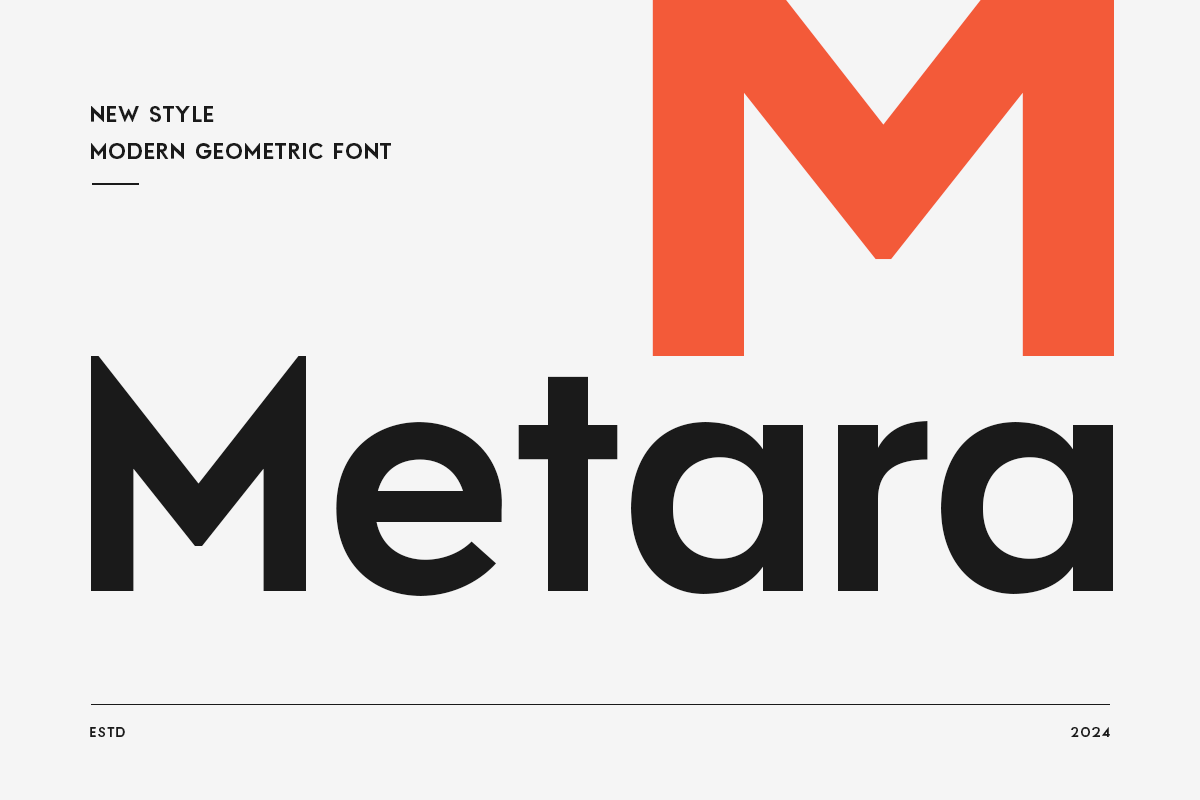
Metara
-Modern Geometric Font
Metara
Metara is a Modern Geometric Font with modern, minimalist, elegant, unique and bold-look. This font crafted specials for Modern-themed projects, ready to use on Magazine, Social Media, Branding, Logo, and Many more that needs Modern touches.